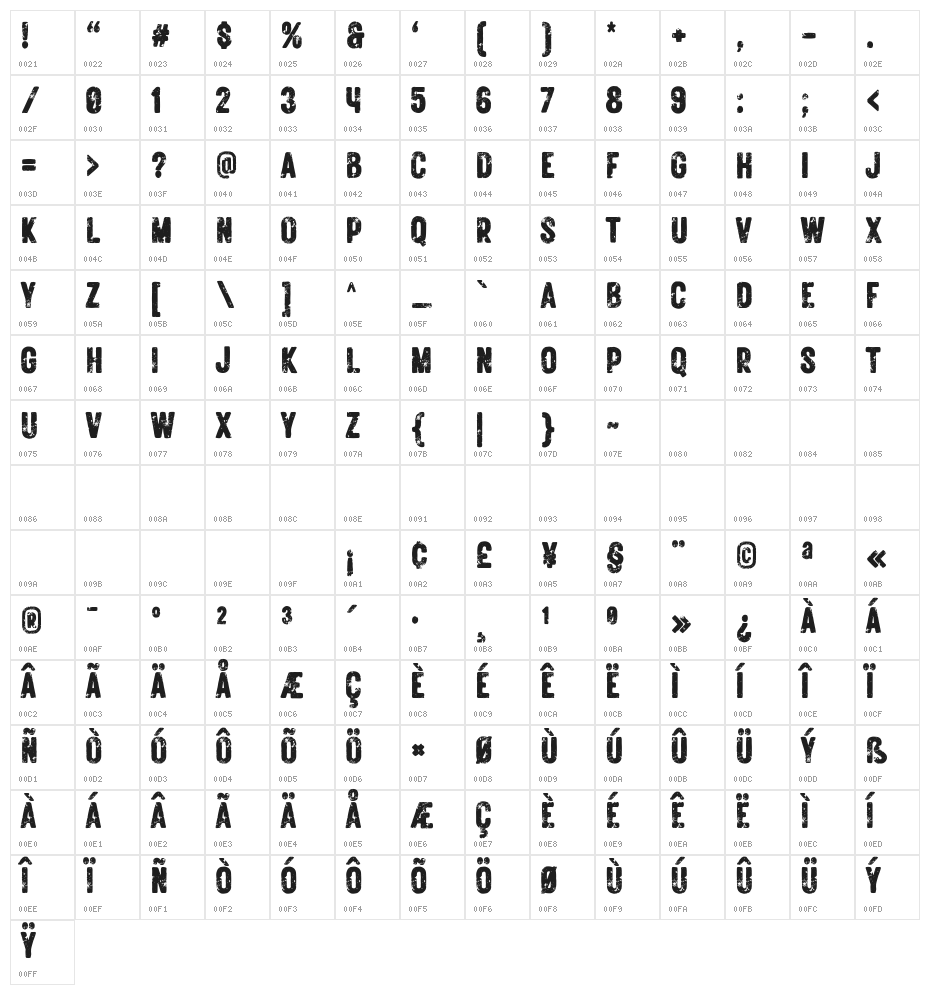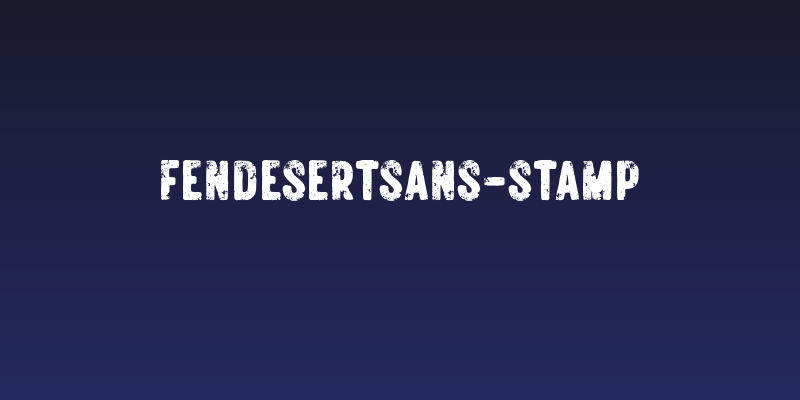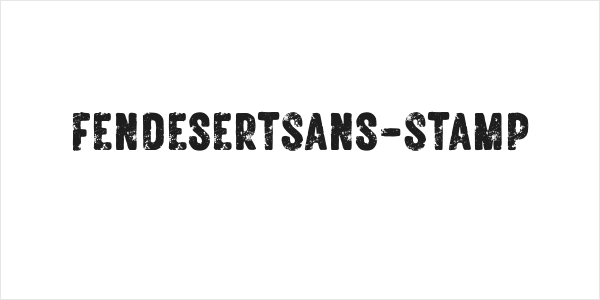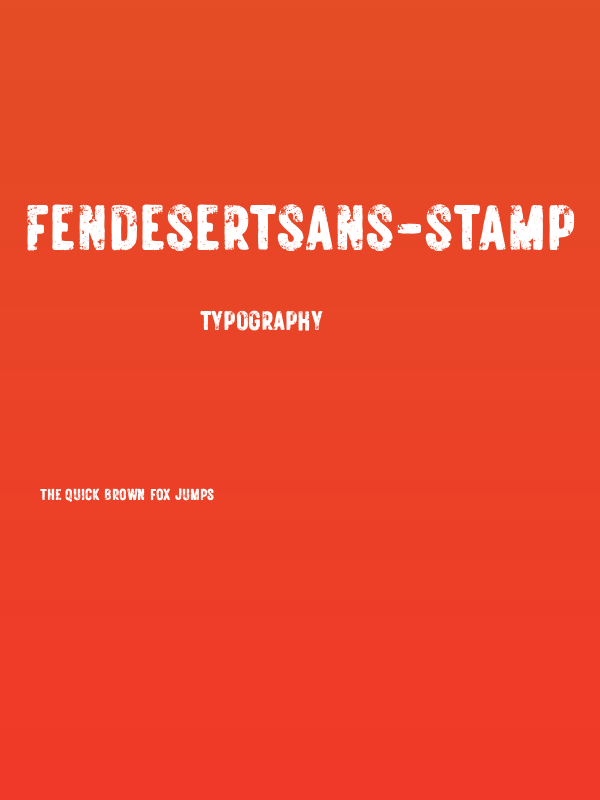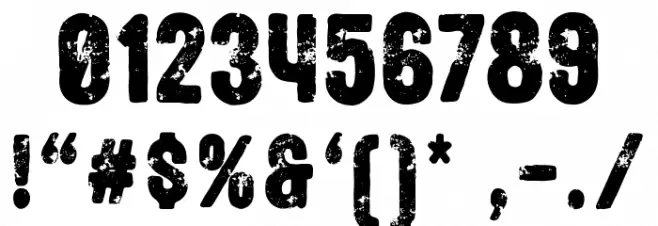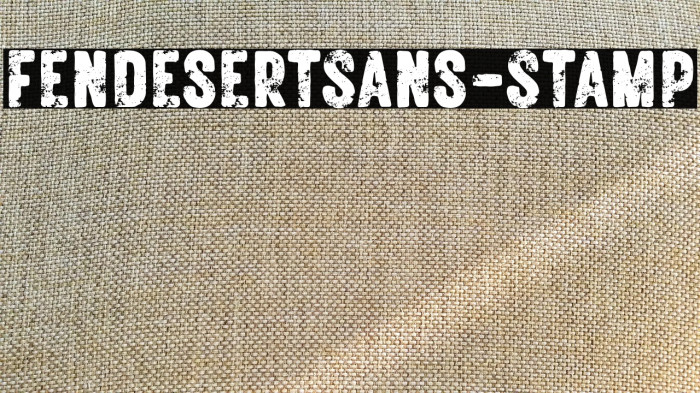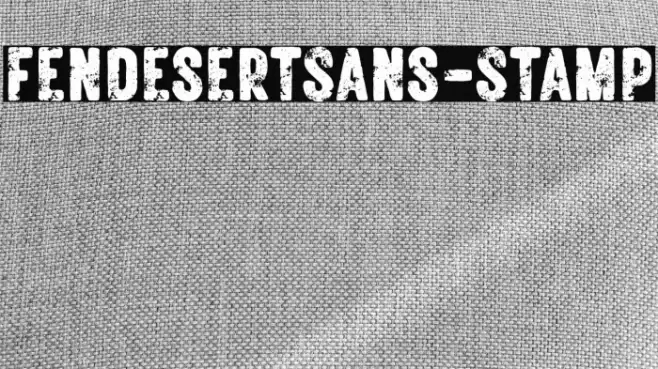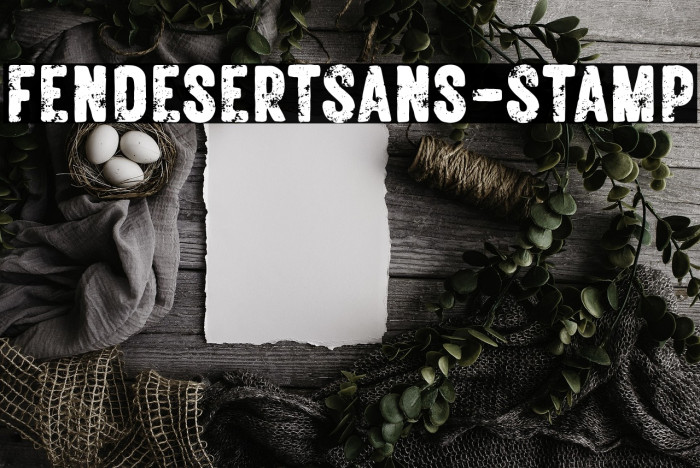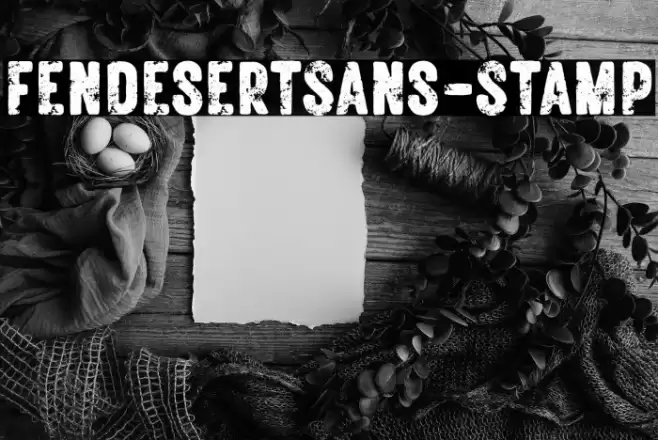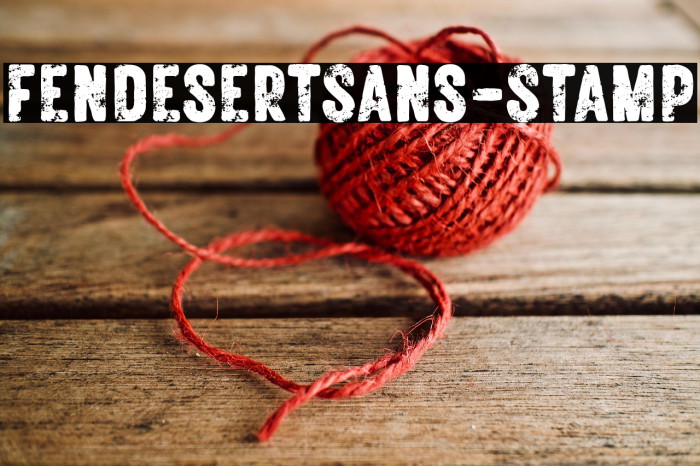
FendesertSans-Stamp Font
FendesertSans-Stamp Description
This font features a bold, distressed style that mimics the appearance of a worn-out stamp. Each character is heavily textured, giving it a rugged and vintage look. The uppercase letters are prominent and commanding, while the numbers and special characters maintain the same distressed aesthetic. The font's design suggests a sense of history and authenticity, making it ideal for projects that require a rustic or industrial feel. Its boldness ensures high visibility, while the textured details add a layer of complexity and interest.
| Overall Style | Vintage |
| Use Case | Logos, Headlines, Posters |
| Proposed Projects | Ideal for branding, posters, packaging, and any design requiring a vintage or industrial touch. |